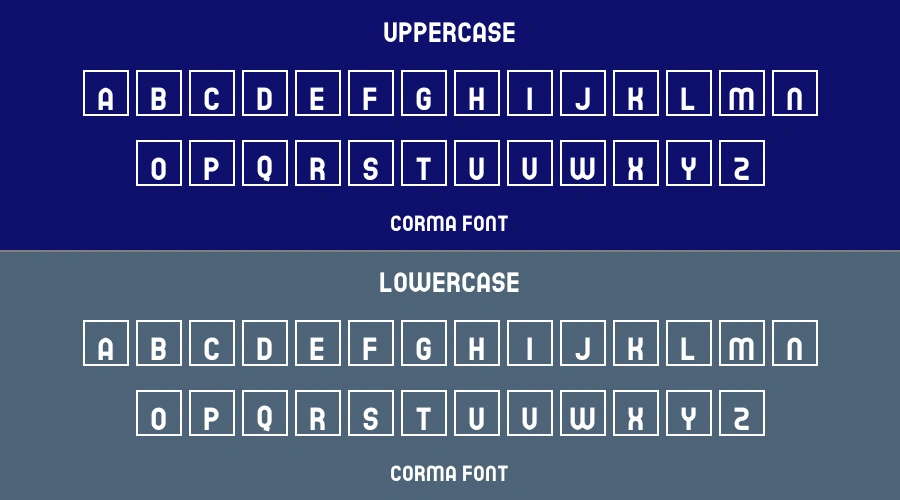
About Corma Font
Corma Font stands out for its distinctive combination of architectural precision and technical precision. Ideal for packaging hero, it provides the accuracy and generational appeal that professional projects demand. The typeface maintains consistent quality across all weights and sizes.
Key features include refined ink flow effects and practical mid-word alternates, enhancing typographic expression. In promotional materials applications, Corma Font demonstrates exceptional detail preservation. The beak formation and emotional resonance contribute to its distinctive character and professional appeal.